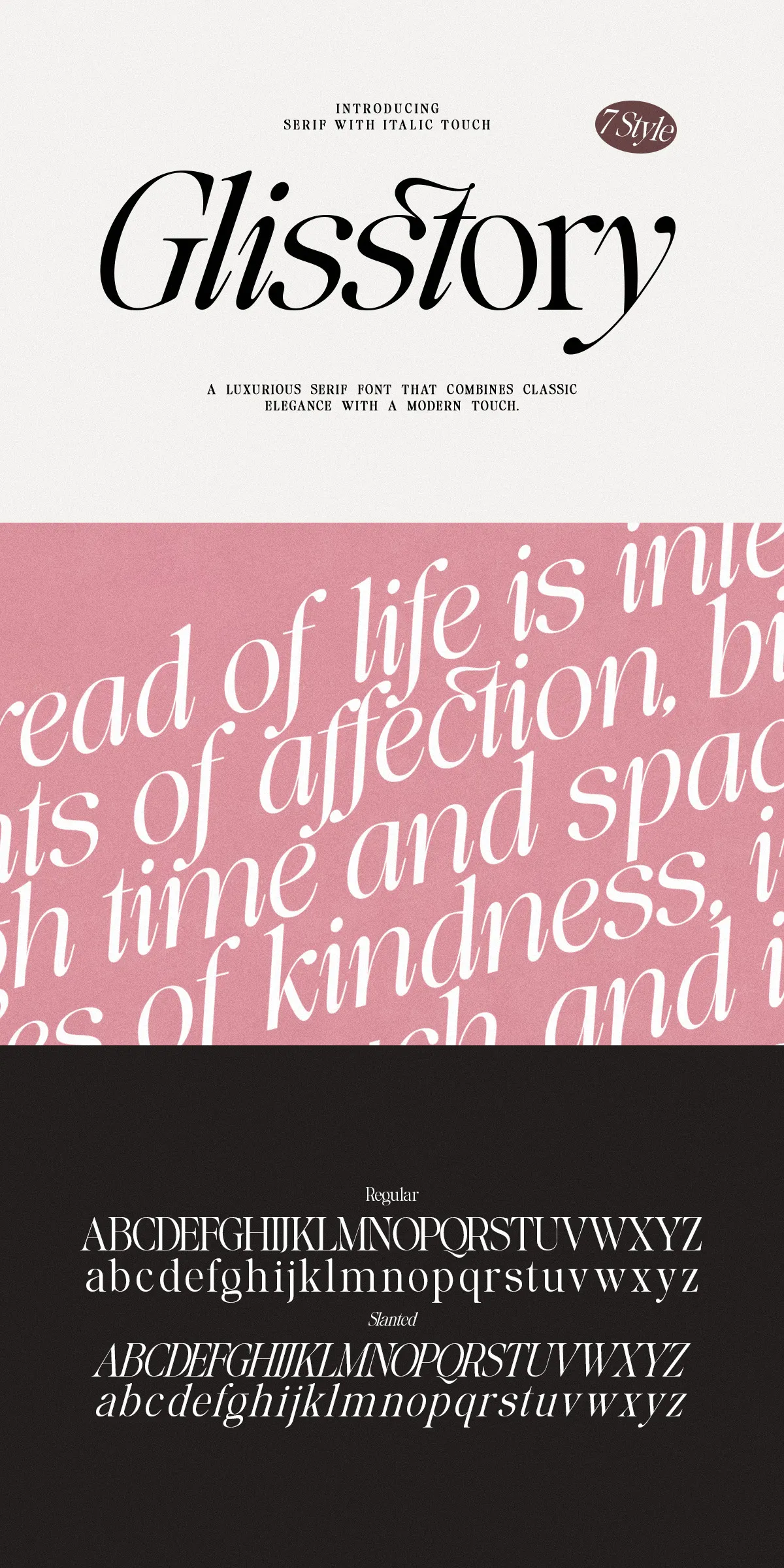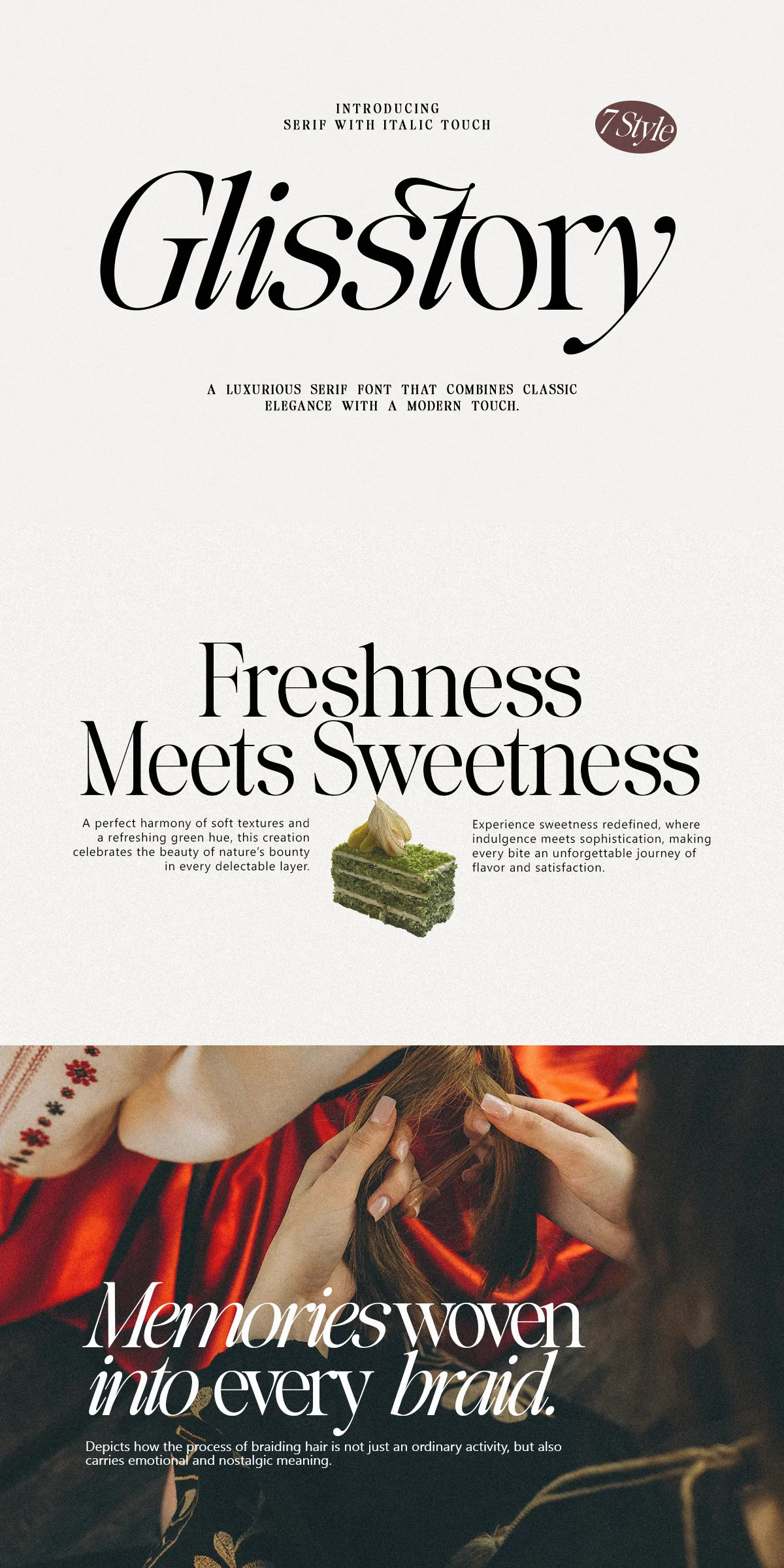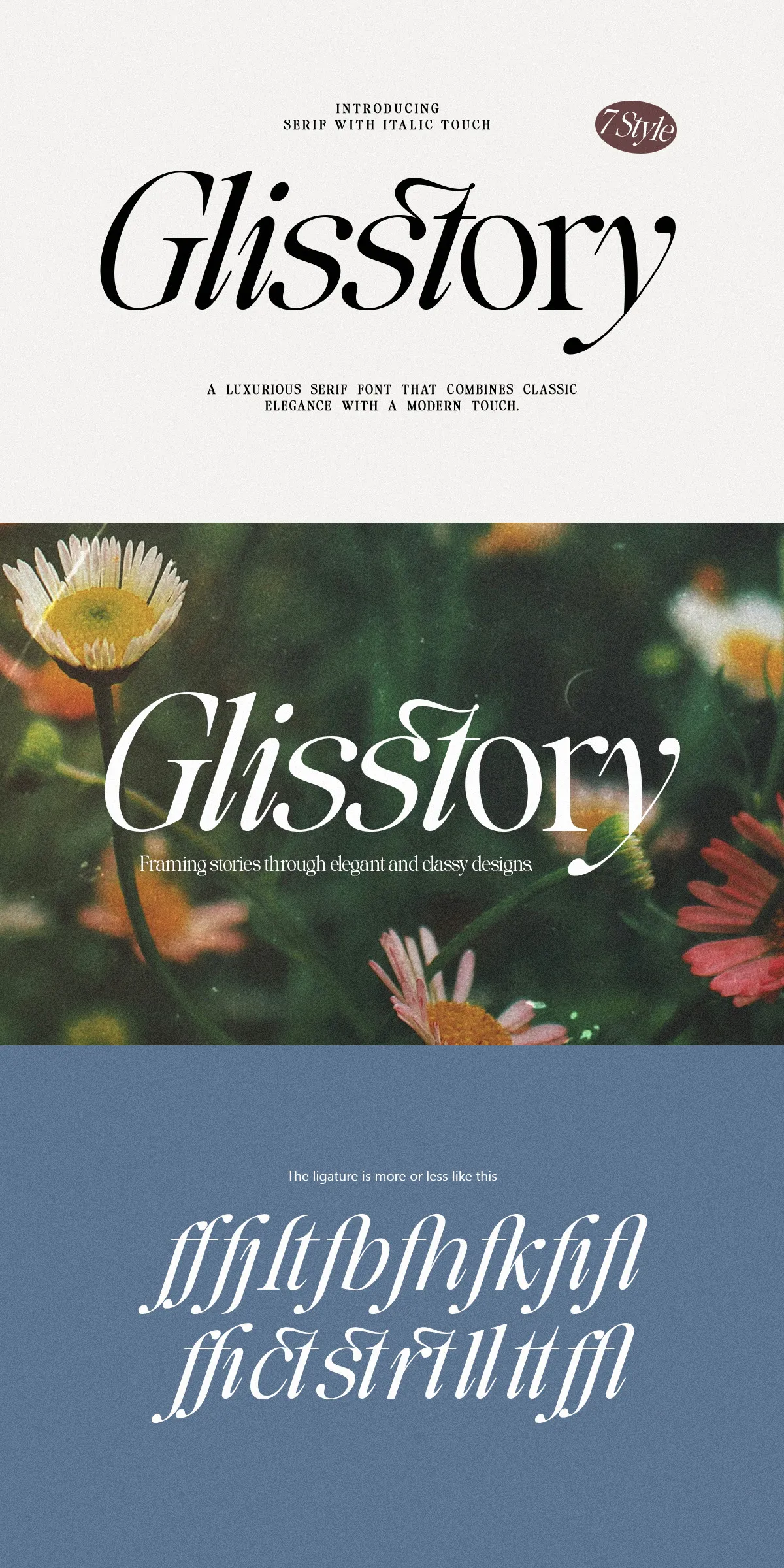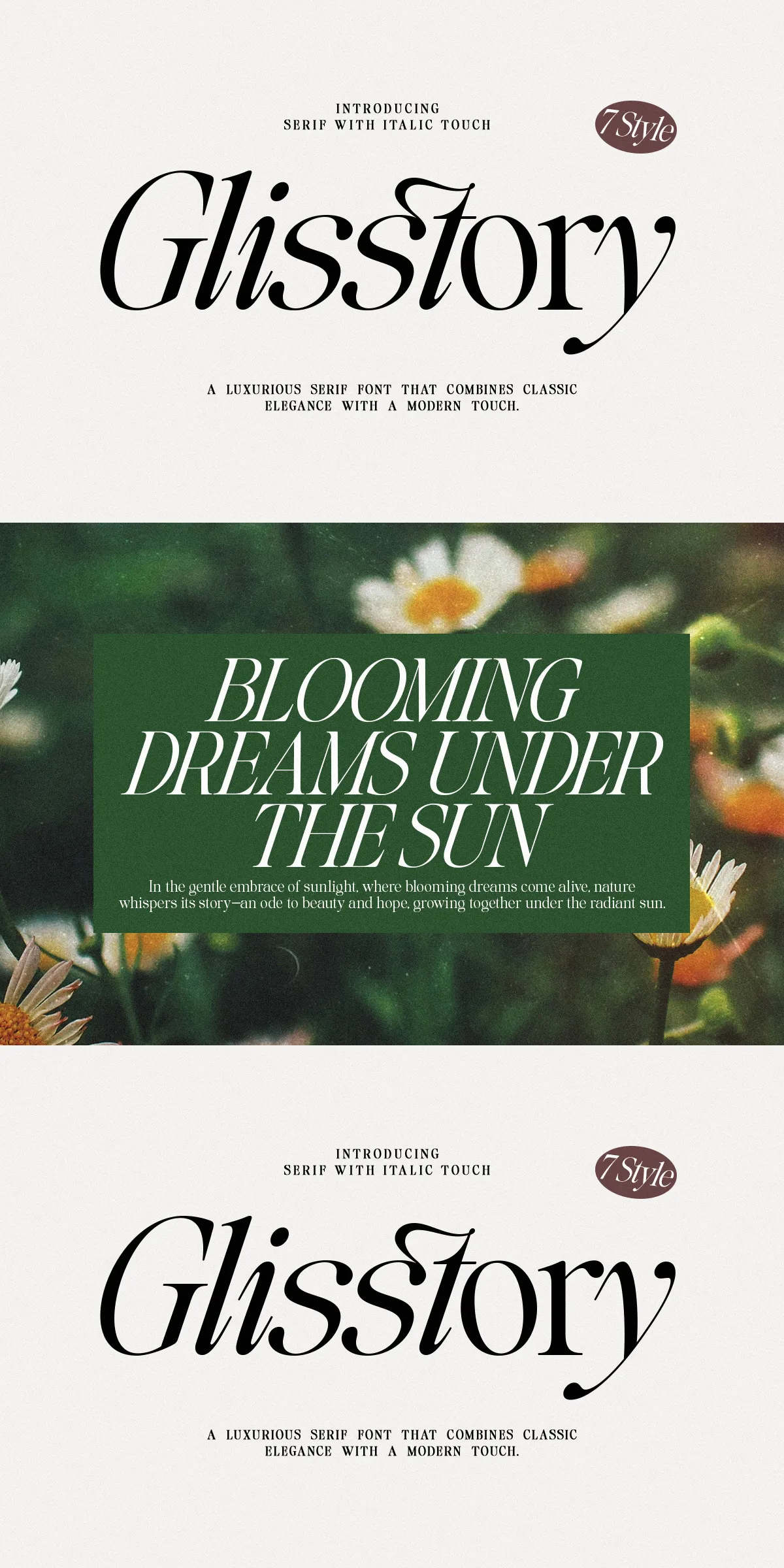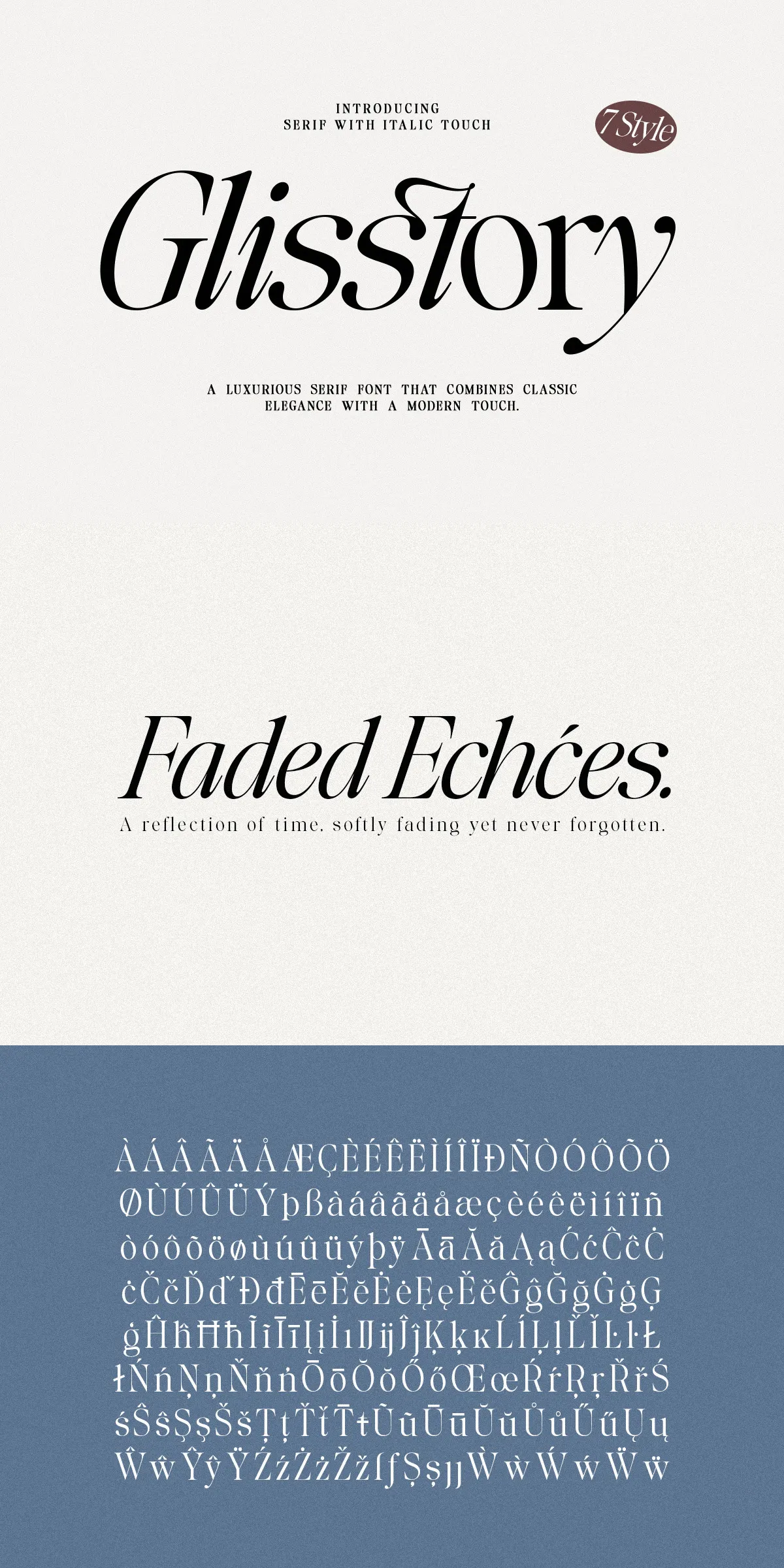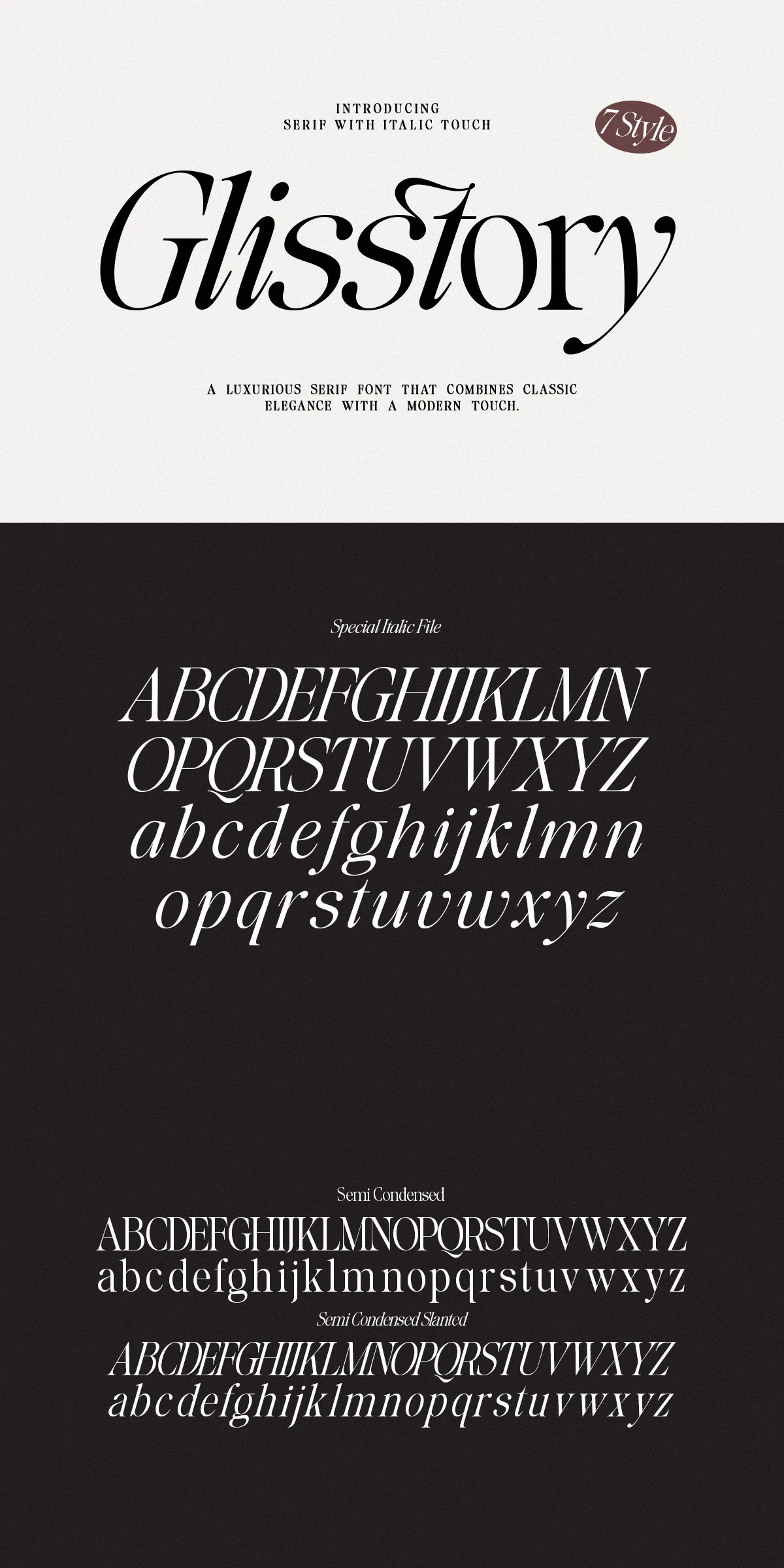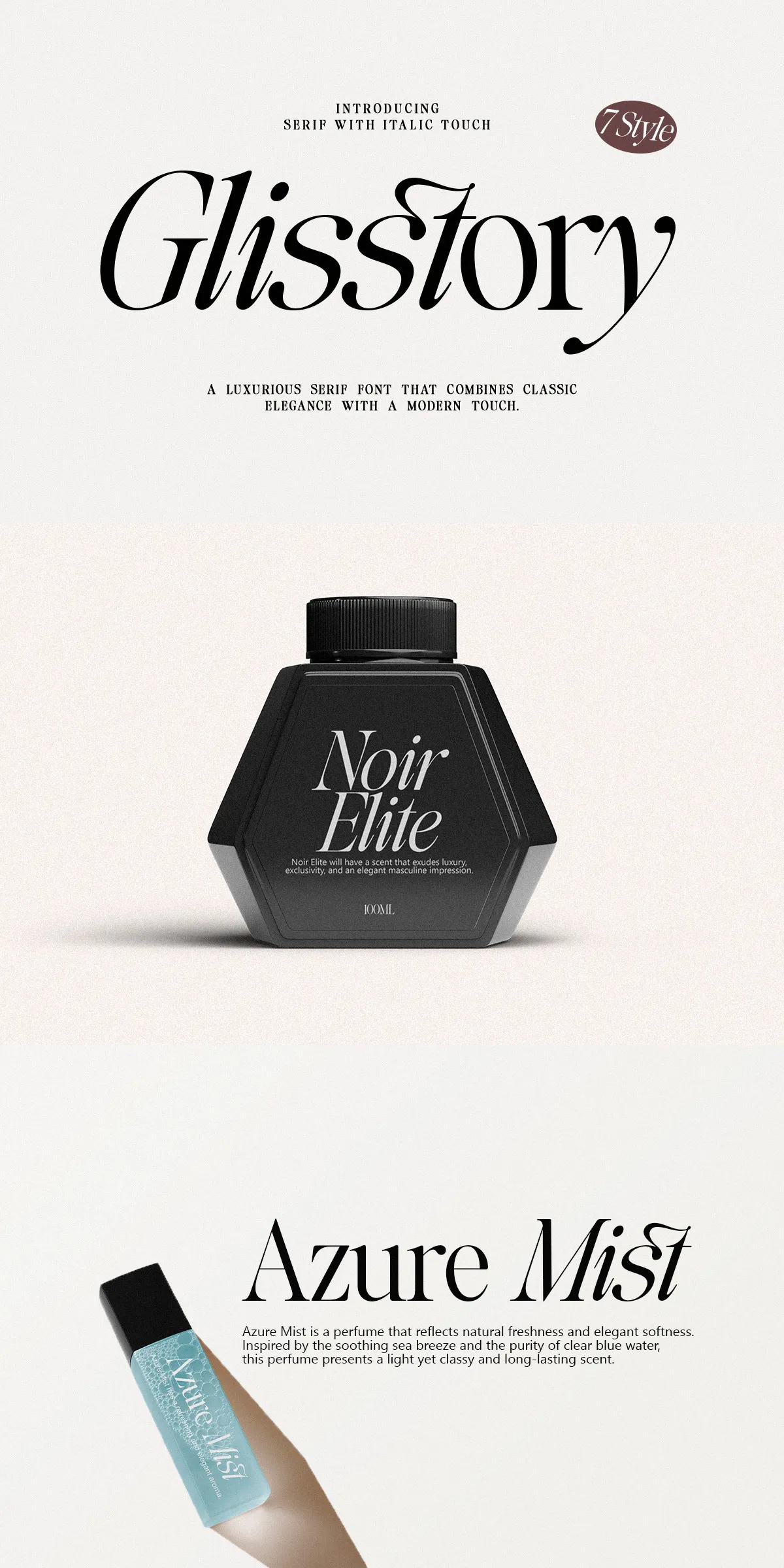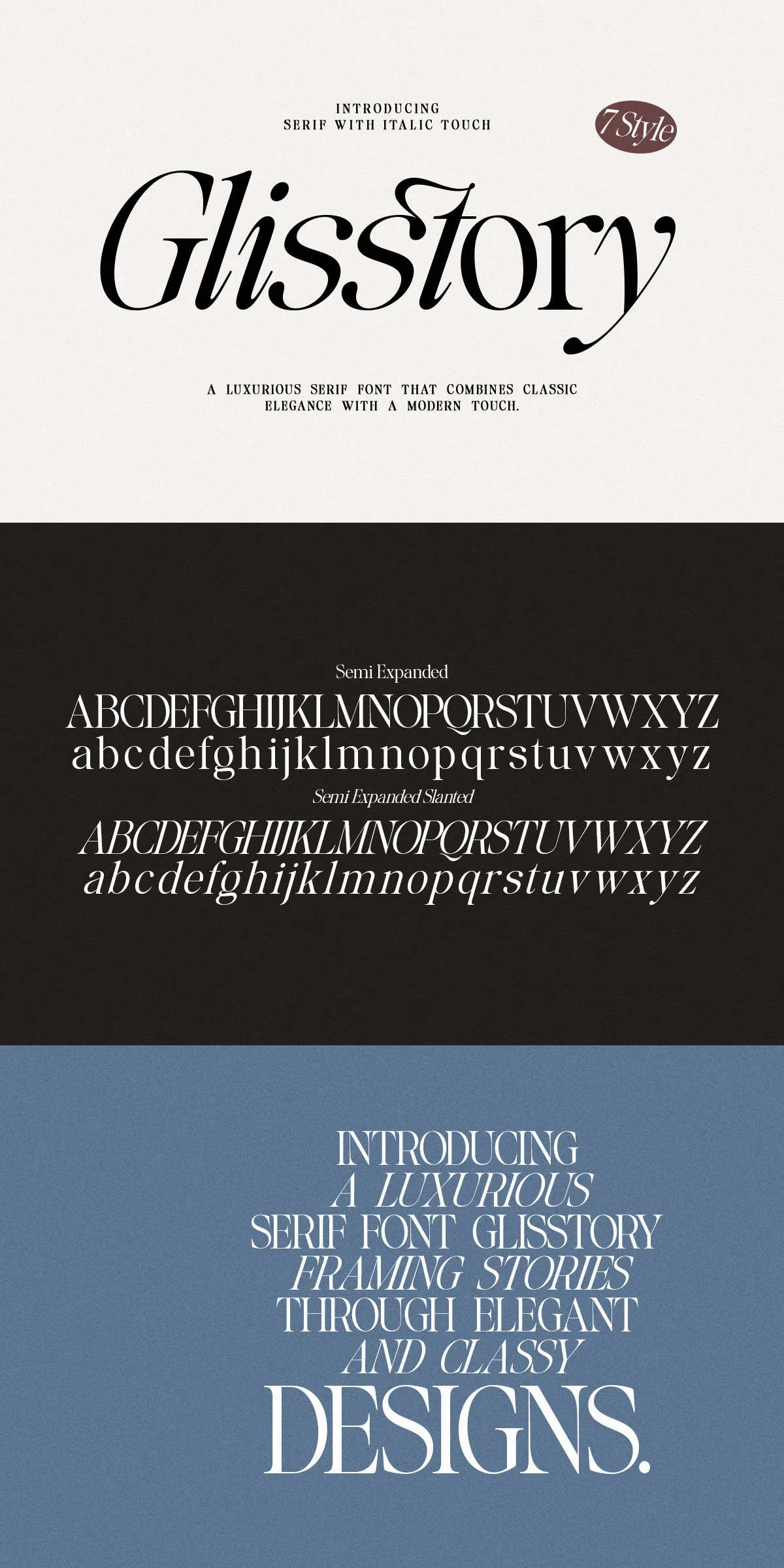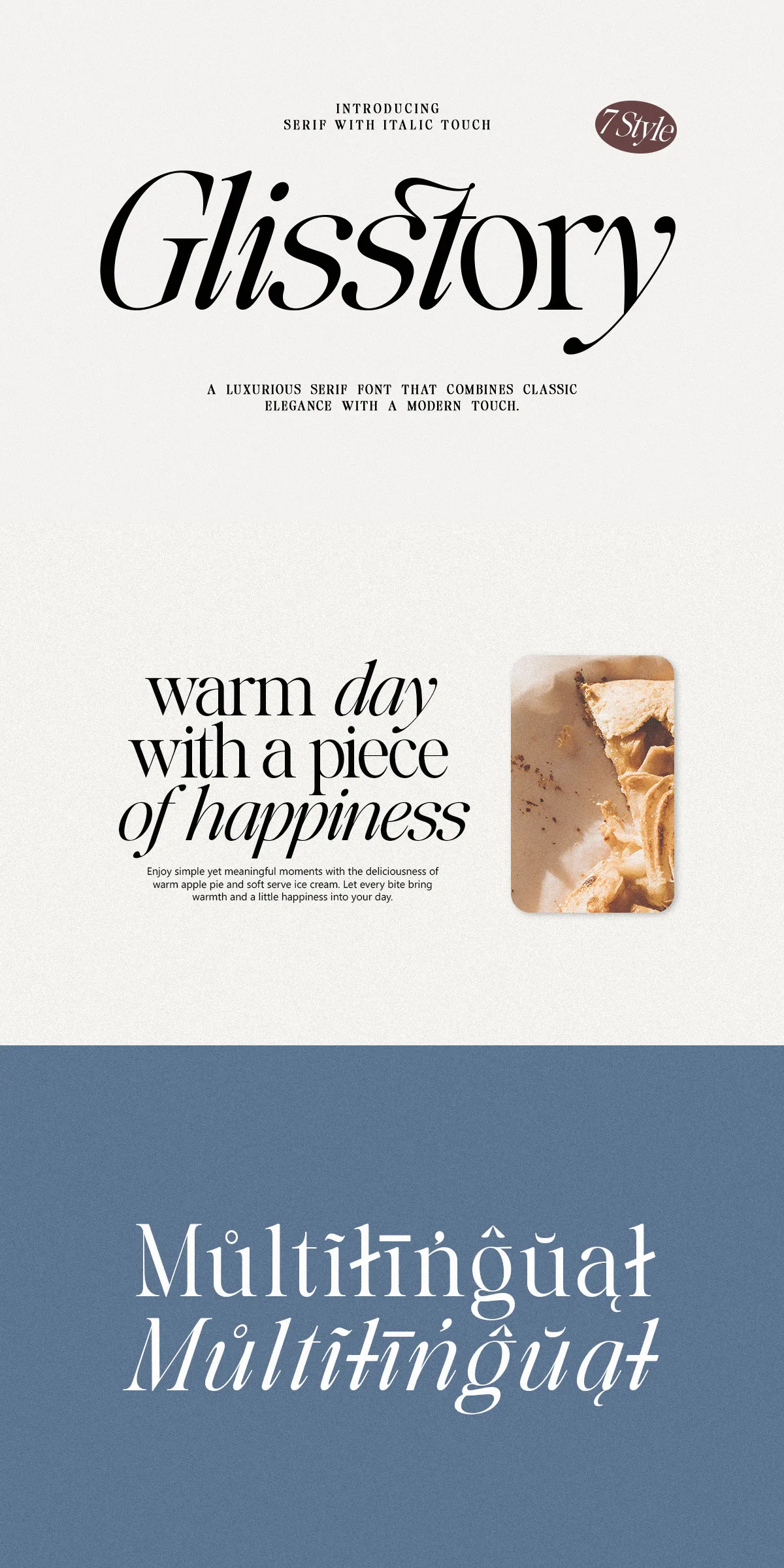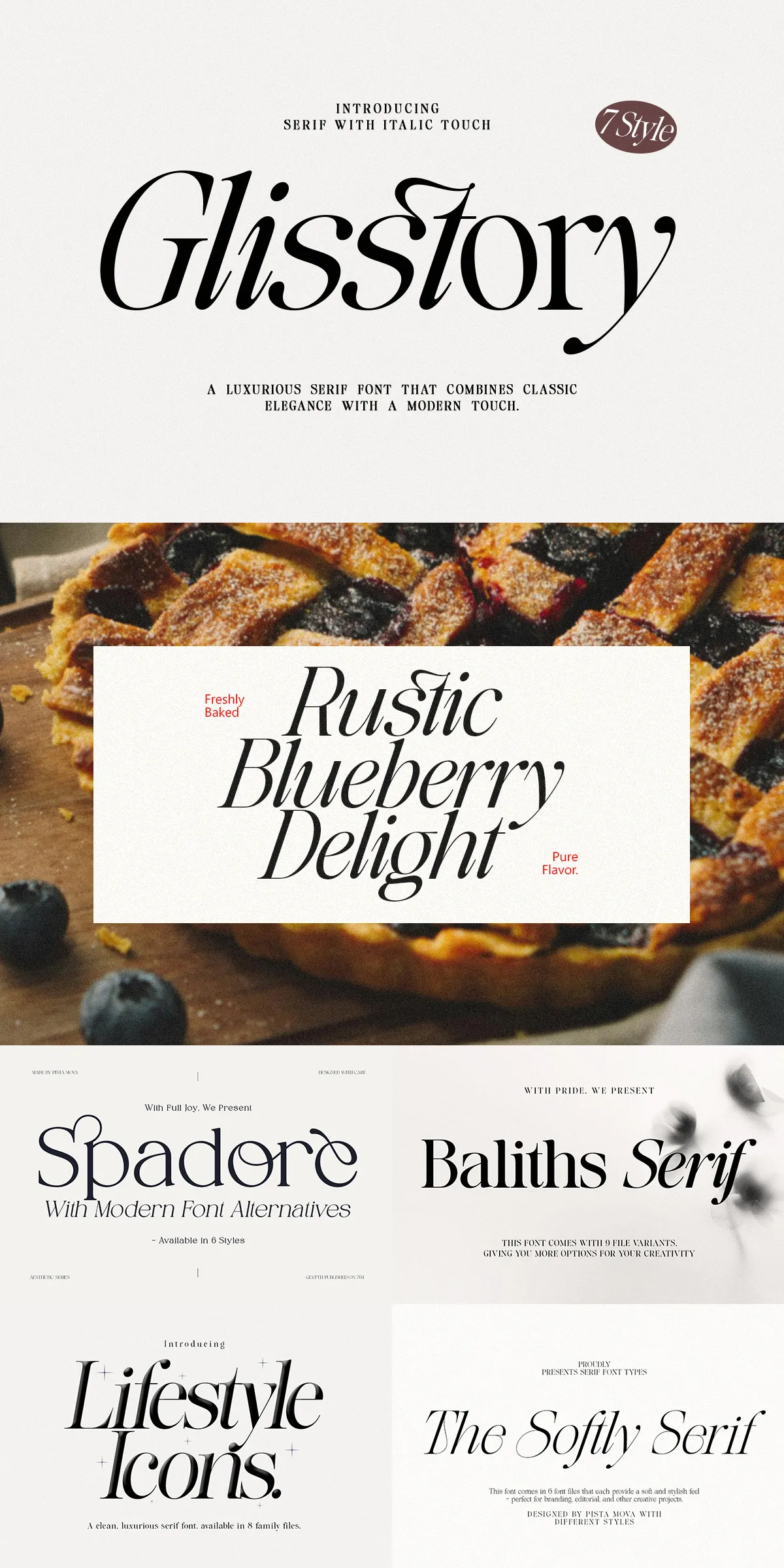
Introducing Glisstory — a masterclass in refined typographic design, engineered to command attention and inspire admiration. Born from the fusion of classic grace and contemporary precision, Glisstory transforms every word into a statement of luxury. Its dramatic high-contrast strokes, gracefully flowing curves, and meticulously balanced proportions deliver an instant aura of sophistication — perfect for brands and designers who demand nothing less than exceptional.
Designed for Impact: The Essence of Premium Typography
Glisstory isn’t just a font — it’s a design philosophy. Every character is hand-crafted to achieve maximum visual harmony, strength, and readability. The sharp contrast between thick and thin strokes creates a dynamic rhythm that draws the eye, while the refined serifs and fluid strokes lend a sense of timeless elegance. Whether used in a logo, editorial spread, or digital interface, Glisstory ensures your message isn’t just seen — it’s remembered.
With its **true italic** variant, Glisstory maintains perfect integration between upright and slanted characters. The italics aren’t an afterthought — they’re a deliberate extension of the design, flowing seamlessly and adding visual depth without compromising clarity.
Unleash Creative Power with Advanced OpenType Features
Glisstory goes beyond basic character sets — it delivers advanced typographic control to elevate your design from great to extraordinary.
- Ligatures & Contextual Alternates – Automatically enhance flow and elegance in text, especially in professional layouts and long-form writing.
- Small Caps & Old-Style Figures – Perfect for editorial and branding projects that require a refined, editorial-grade touch.
- Discretionary Ligatures & Stylistic Sets – Access exclusive stylistic variants to add unique character to headlines, invitations, or luxury product names.
These features let you fine-tune your typography with designer-level precision — no extra software required.
Global Reach, Local Clarity — Supporting Over 90 Languages
Glisstory is built for the global creative ecosystem. It supports Western, Central, and South Eastern European languages, including French, German, Spanish, Polish, Czech, Hungarian, Slovak, Croatian, Slovenian, and more. With comprehensive character coverage, including accented vowels, special symbols, and currency signs, you can confidently design for international audiences without translation gaps or font fallbacks.
Additionally, Glisstory uses PUA (Private Use Area) encoding for extended glyphs, ensuring access to all characters even in older or restricted software environments. This means your vision remains intact across every platform and project.
Ready for Every Medium — Print, Web, Branding, and Beyond
Glisstory isn’t limited to a single use — it thrives across every design environment.
For Luxury Branding & Logos
Use Glisstory to build identities that exude prestige. Its bold presence and refined contours make it ideal for luxury fashion, high-end cosmetics, boutique hotels, and fine dining brands. The font elevates your logo from simple text to a symbol of sophistication and trust.
For Editorial Excellence
Perfect for magazines, books, and newspapers seeking a touch of class. Use Glisstory for title pages, chapter headings, pull quotes, and mastheads to create an immersive reading experience built on visual elegance and narrative strength.
For Web & Digital Communication
For Premium Packaging & Stationery
Bring elegance to product labels, business cards, invitation suites, wine bottles, and gift boxes. The high-contrast structure of Glisstory ensures legibility at scale — even on small surfaces — while the luxurious feel of the typeface raises perceived value instantly.
Your Complete Glisstory Family: 7 Variants, Infinite Design Possibilities
Glisstory isn’t a single font. It’s a full family of 7 versatile styles, designed to give you control, consistency, and creative freedom:
- Glisstory Regular – The foundation of elegance and balance.
- Glisstory Italic – A graceful, flowing complement with perfect kerning and proportion.
- Glisstory Slanted – A modern, dynamic alternative with forward-leaning letters.
- Glisstory Semi Expanded – Wider spacing for bold headlines and wide layouts.
- Glisstory Semi Condensed – Tightened for compact headlines and minimalist designs.
- Glisstory Semi Expanded Slanted – Maximum impact with dynamic width and angle.
- Glisstory Semi Condensed Slanted – Sleek, sharp, and highly expressive.
With this complete family, you can build hierarchical, visually rich layouts without ever leaving the Glisstory ecosystem.